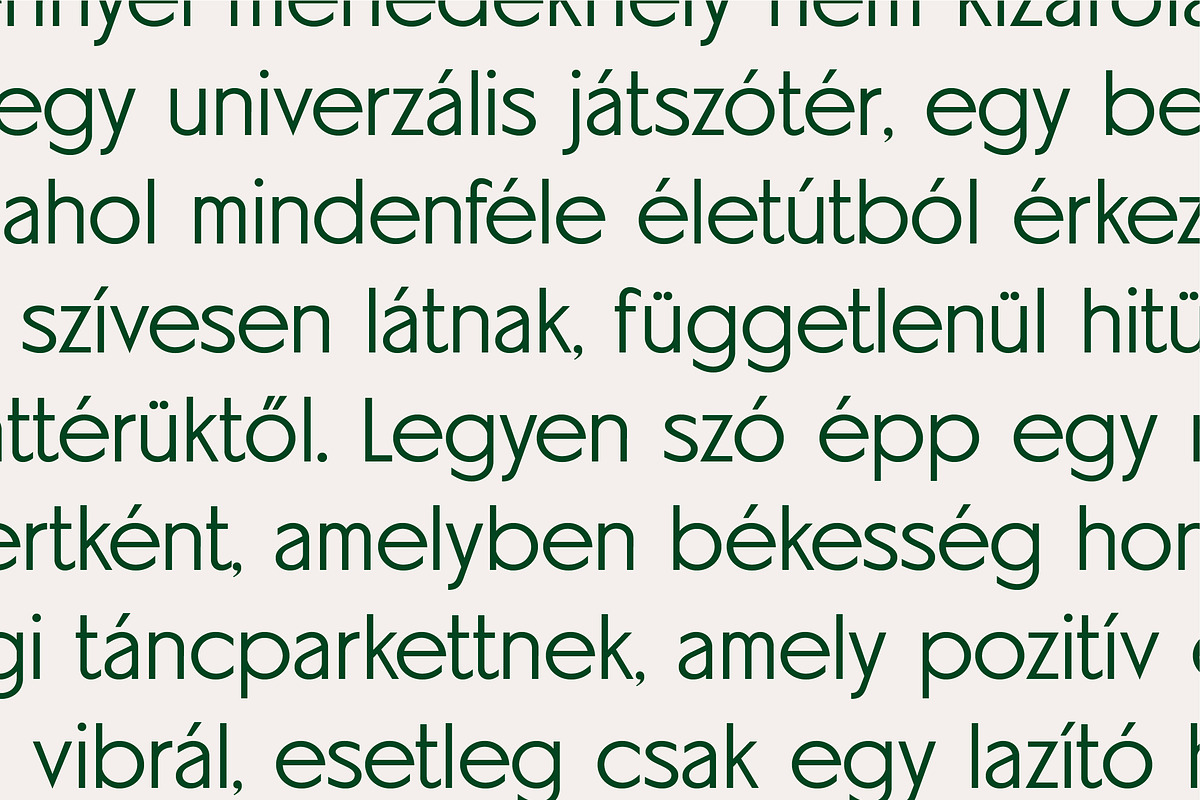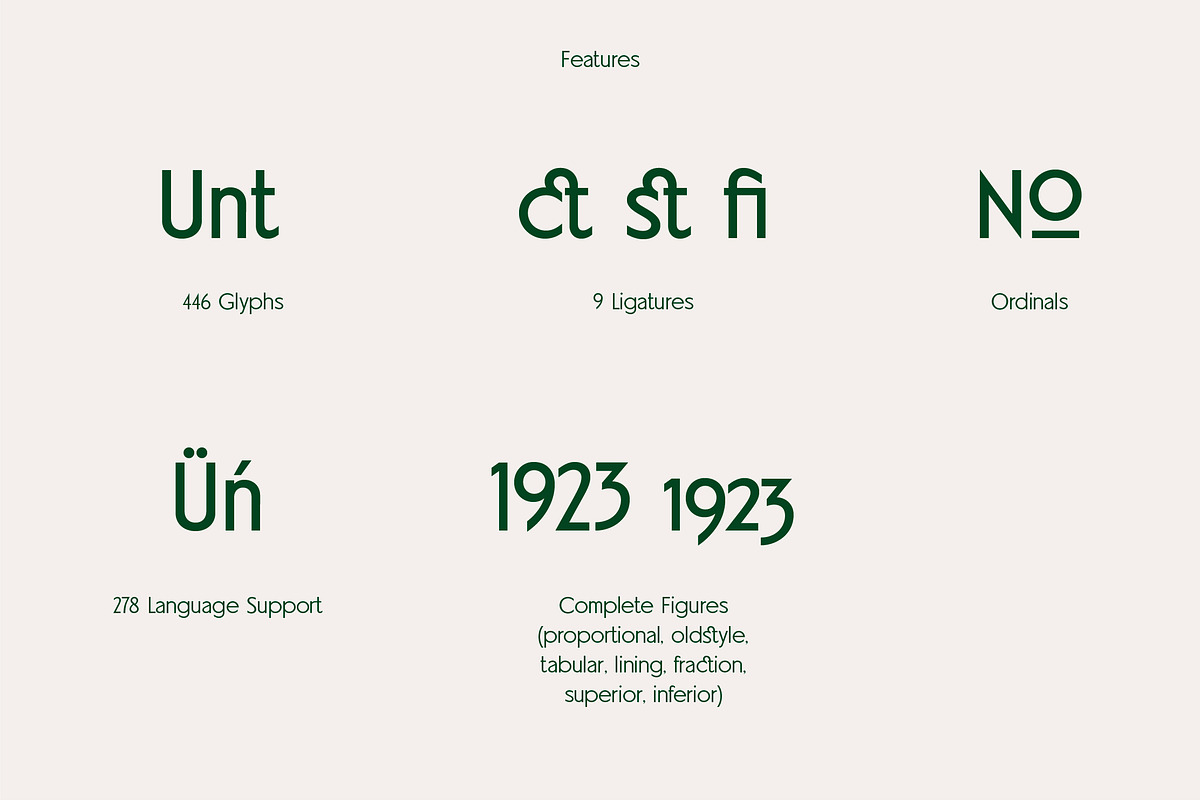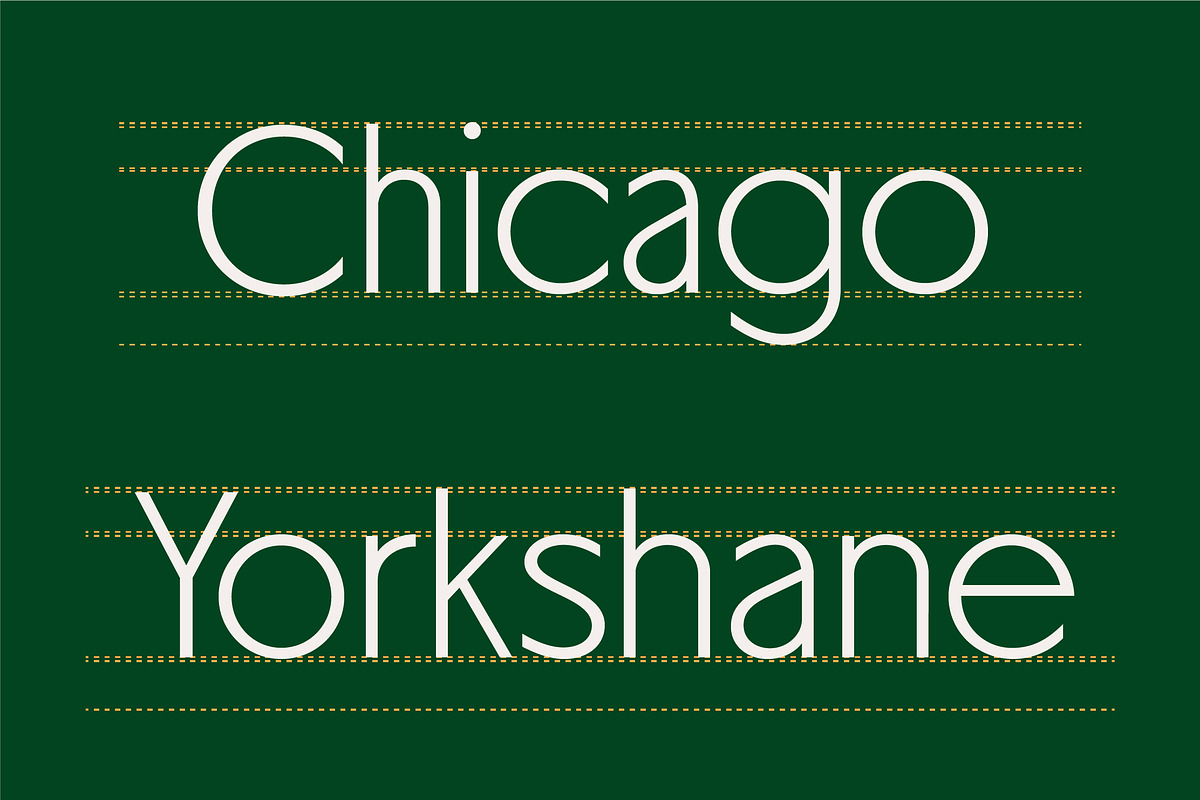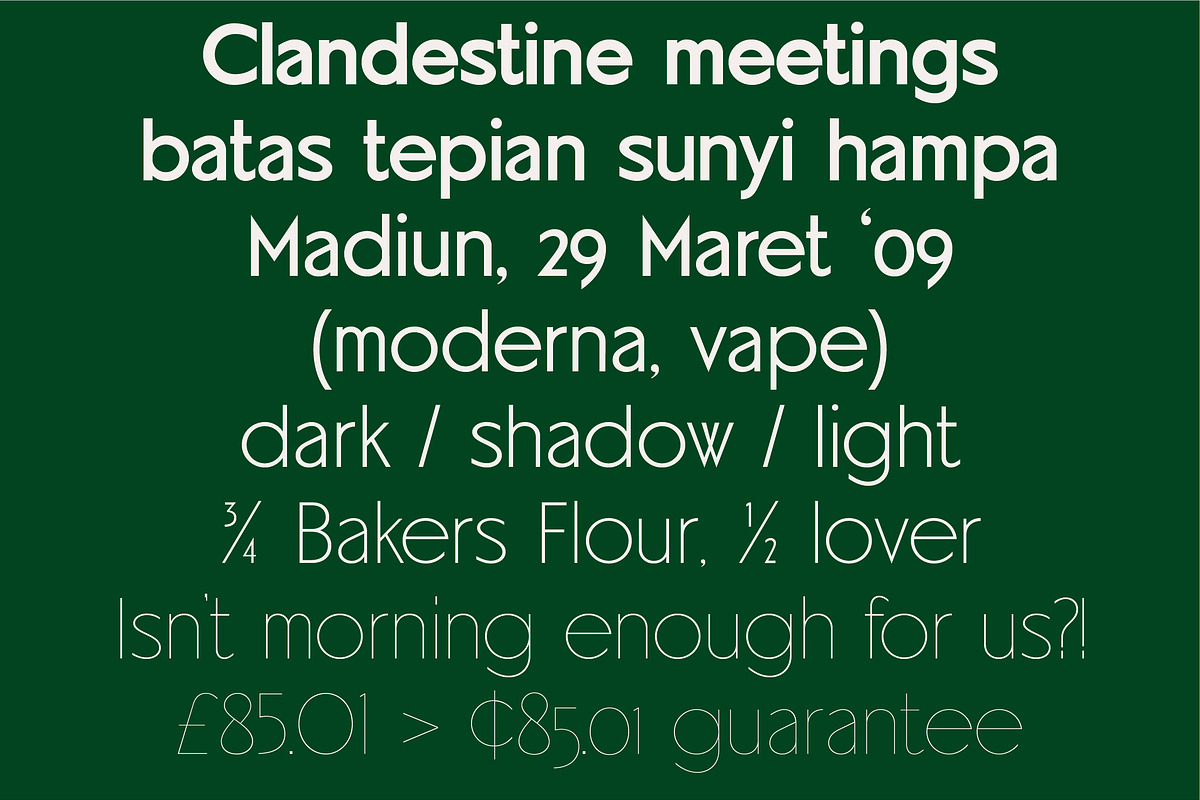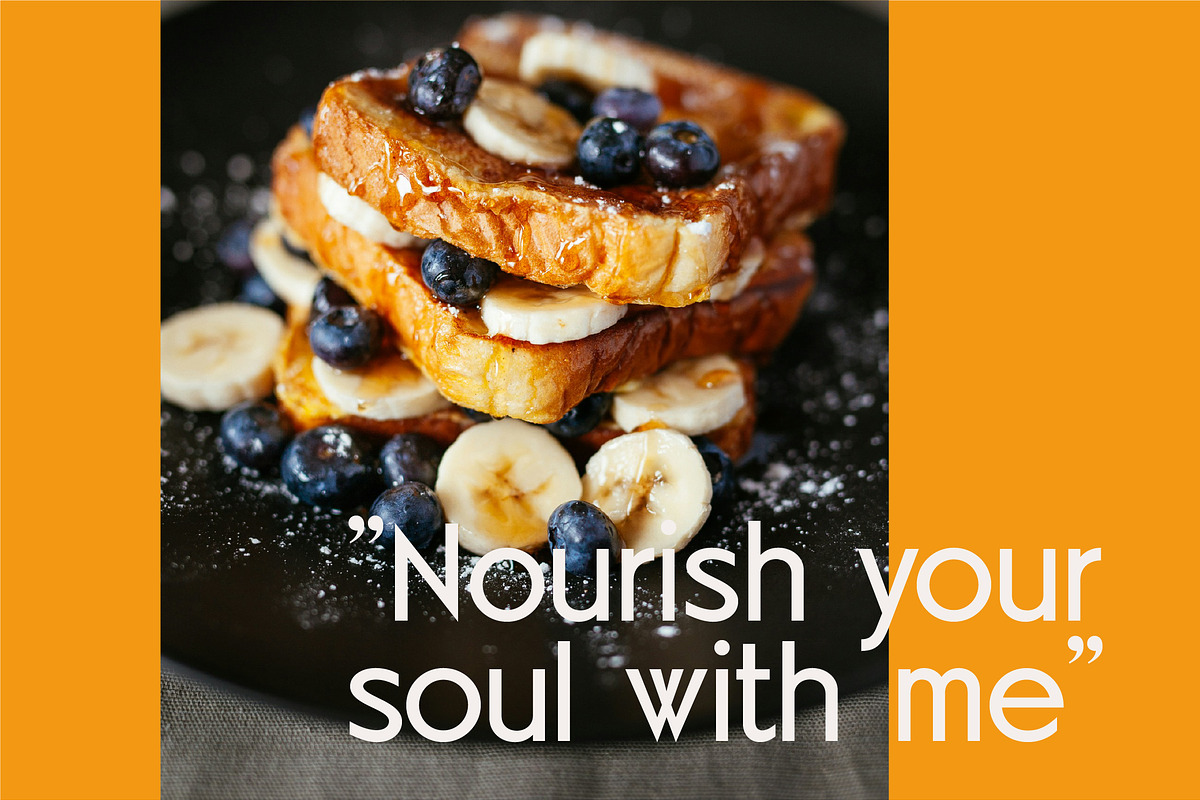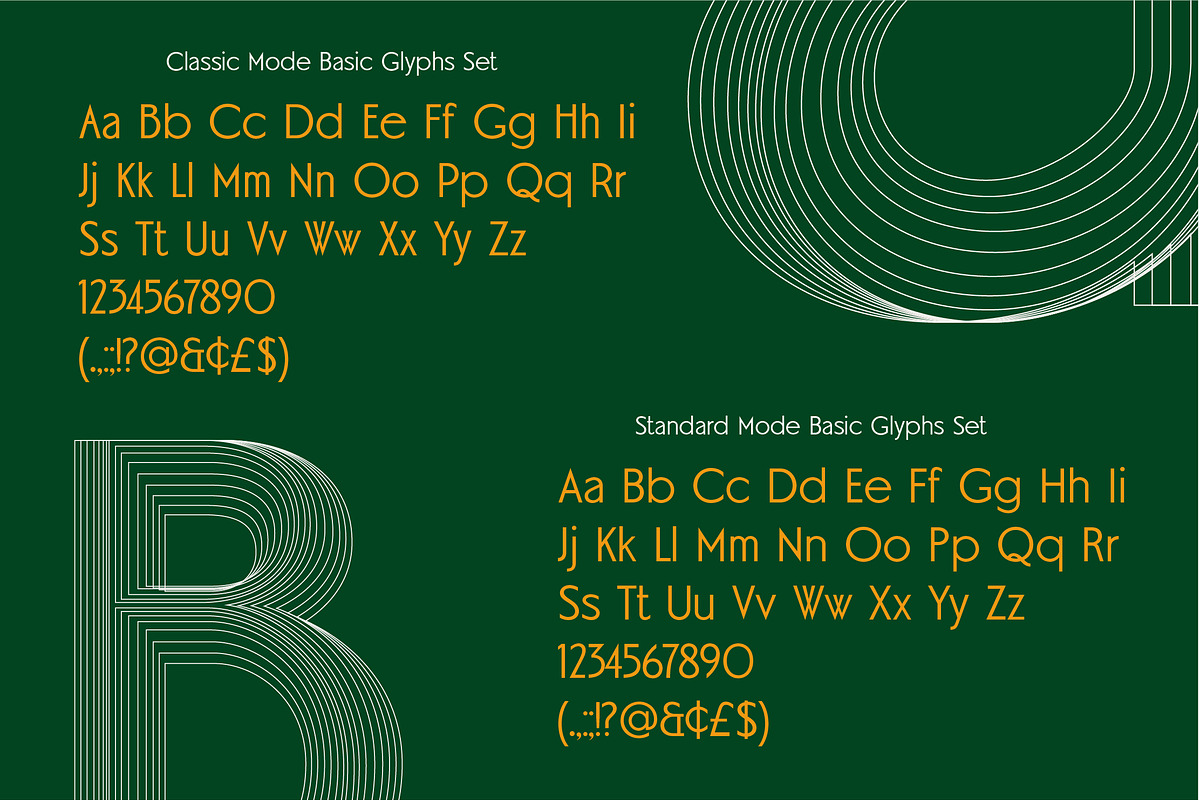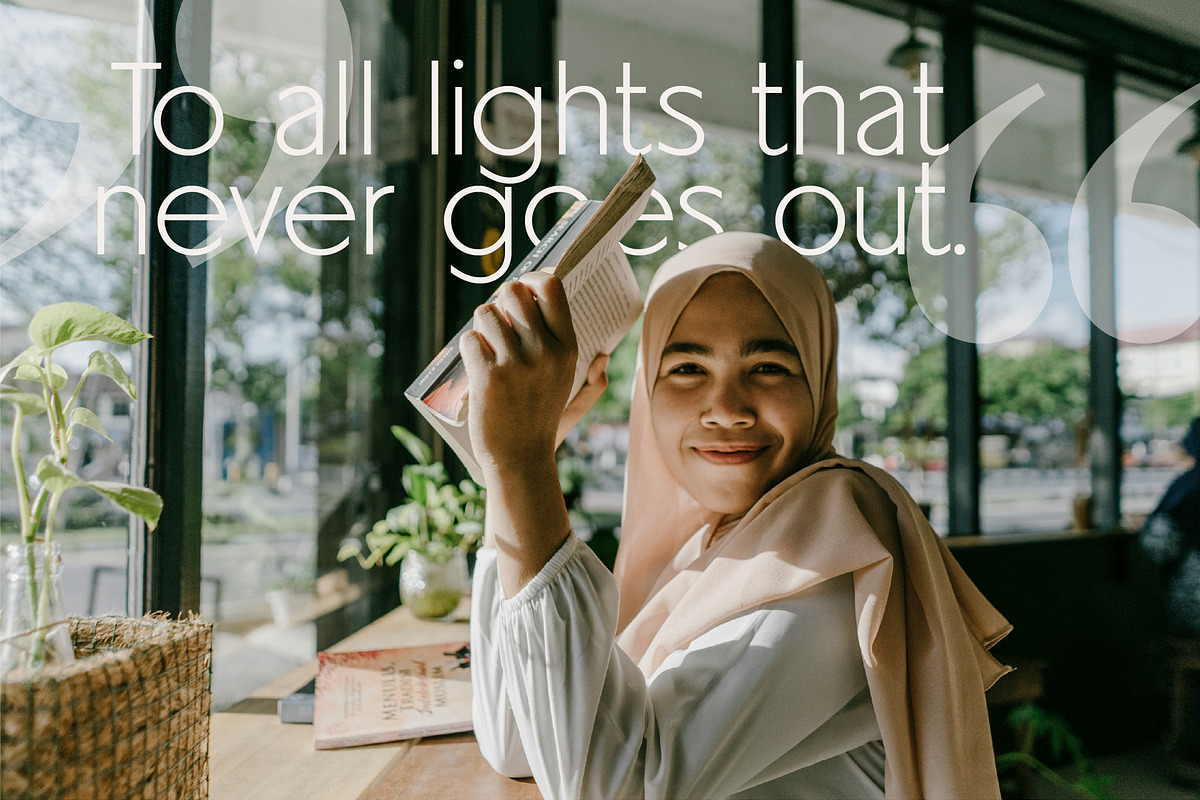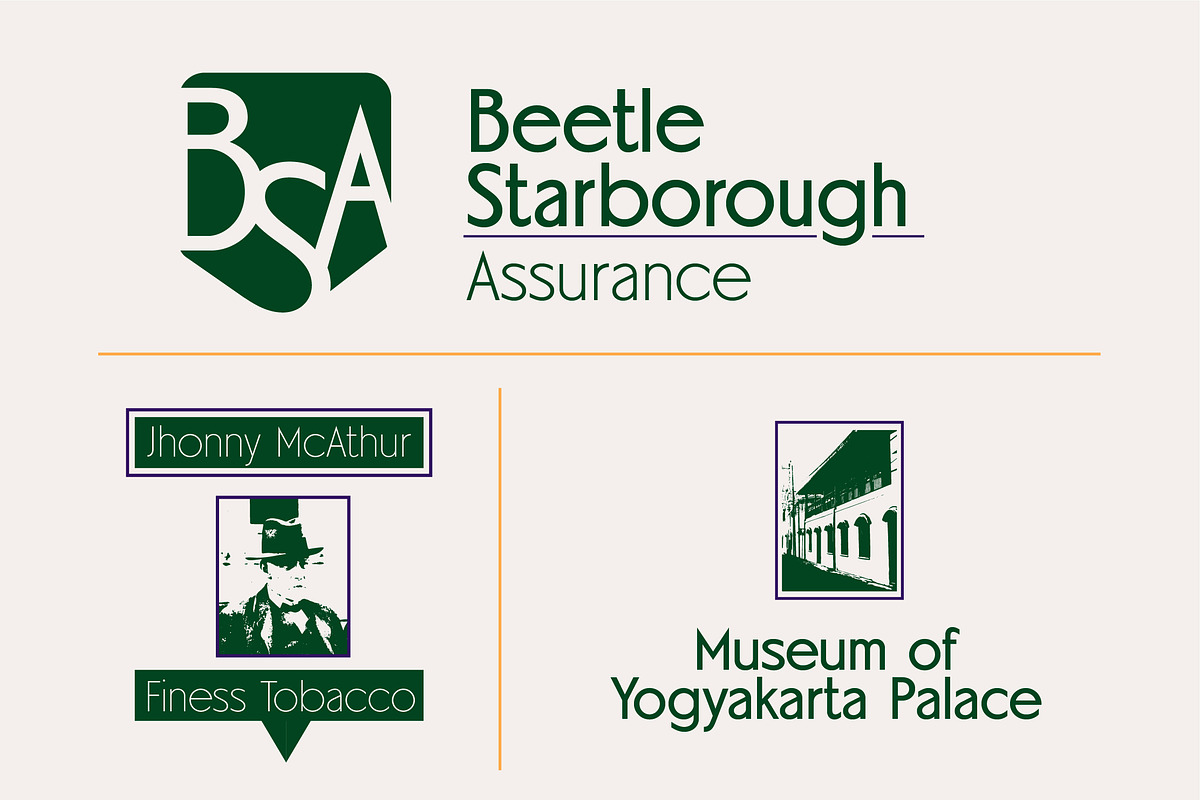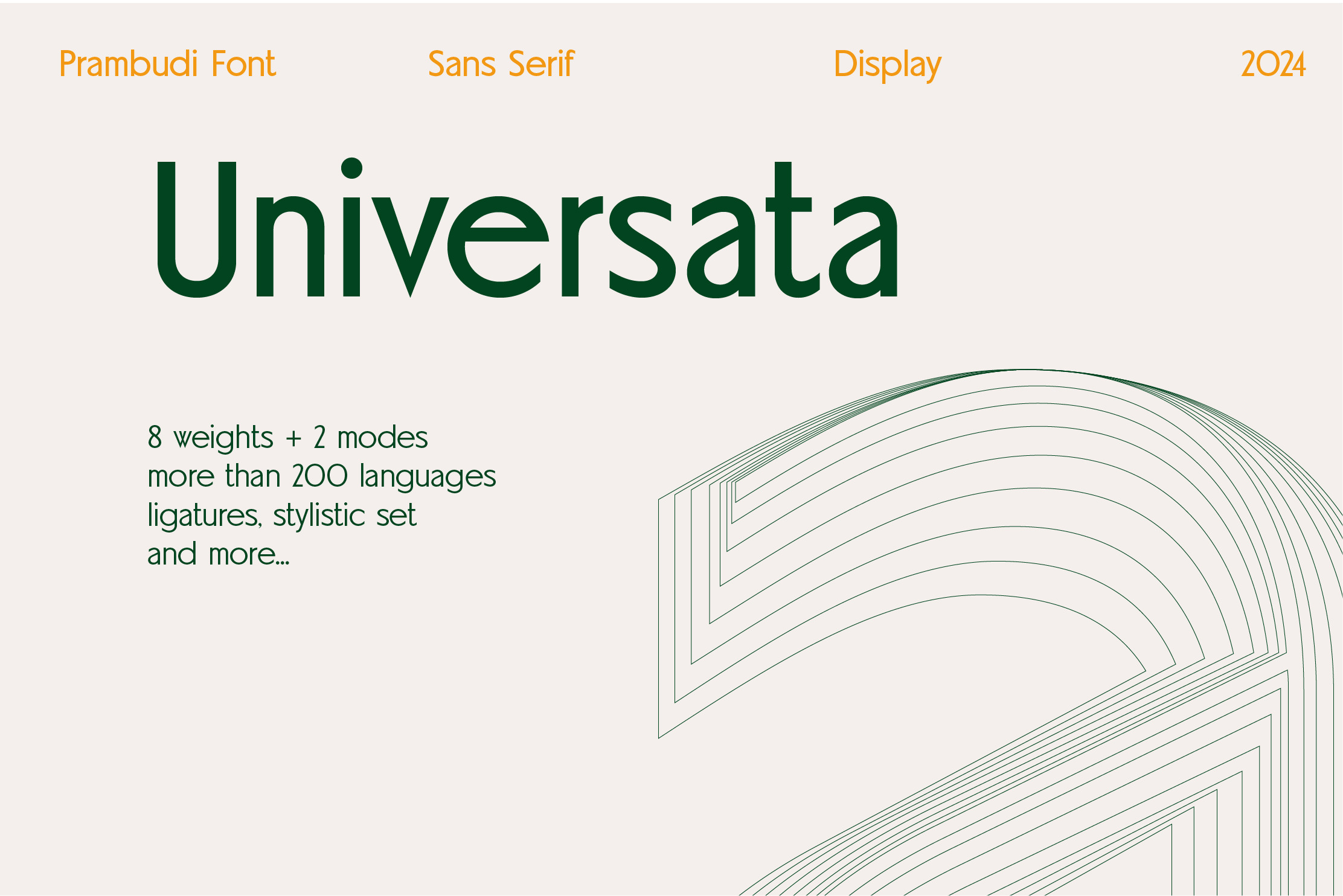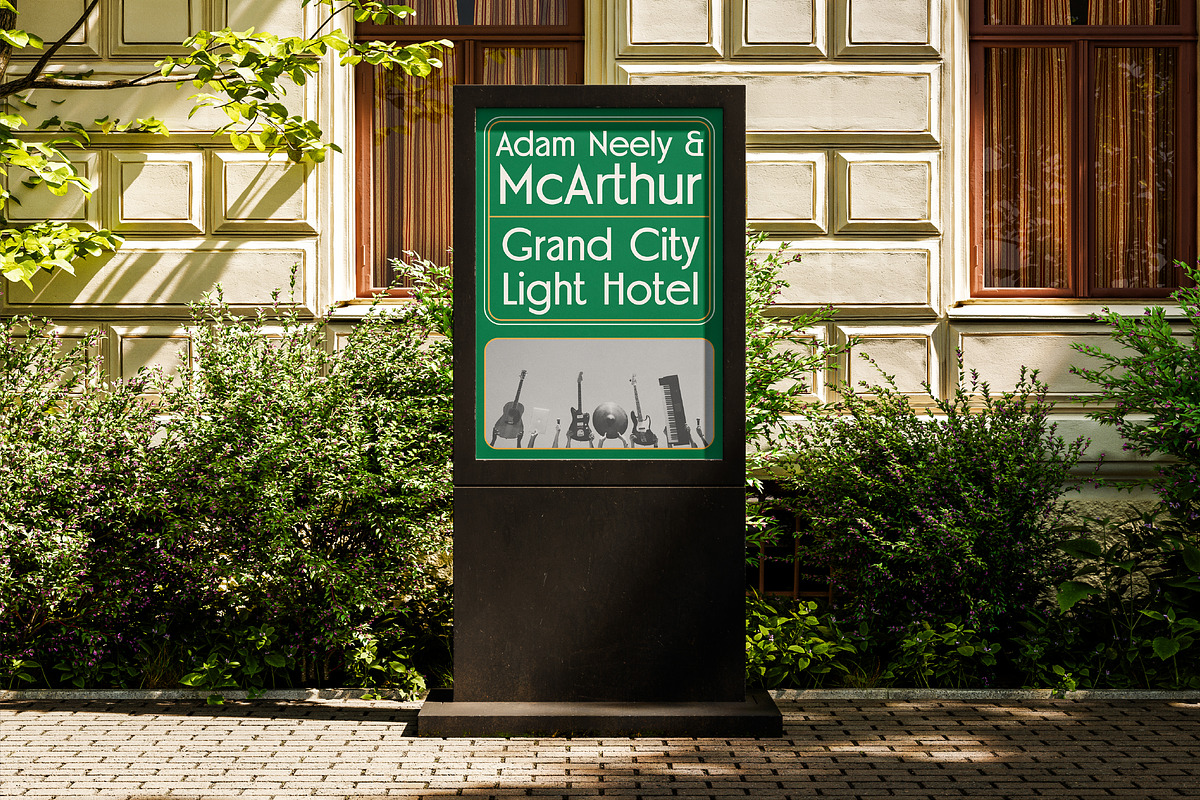
Universata Typeface (16 fonts)
Introducing Universata – a groundbreaking fusion of contemporary chic and timeless grace. Born from a relentless pursuit of elegance, this revolutionary typeface marries the crisp lines of sans-serif with the enduring allure of Stunt Roman. The result? A mesmerizing blend of modern simplicity and traditional Roman sophistication.
Imagine your headlines and titles infused with unparalleled charisma, commanding attention with every stroke. Universata doesn't just catch the eye – it captivates it, leaving a lasting impression that resonates with your audience.
Elevate your designs to new heights with Universata. It's not just a typeface; it's a statement – a testament to the power of innovation and style. Join the ranks of those who dare to stand out, and let Universata be your partner in making a bold impact.
- 446 Glyphs total
- 9 ligatures
- Ordinals
- 278 Language Support (get specimen for more info)
- Complete Figures